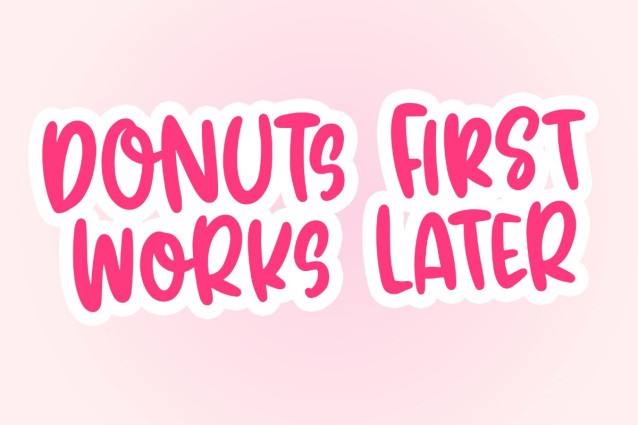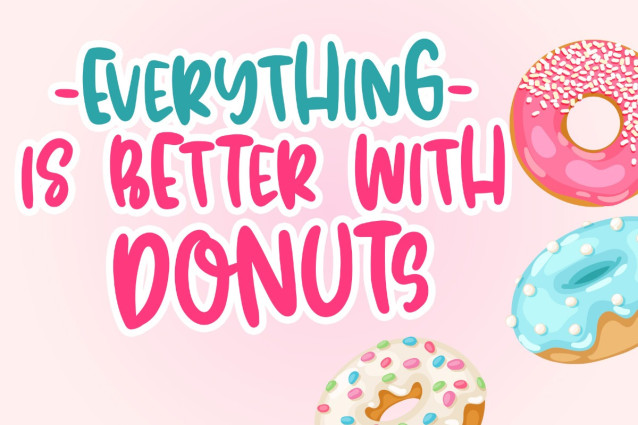
Baby Donuts Font
Baby Donuts Font, a sweet and playful typeface that brings a delightful touch to your design projects. Inspired by the whimsy of baby aesthetics and the irresistible appeal of donuts, this font is perfect for creating charming designs for baby announcements, nursery decor, and more.